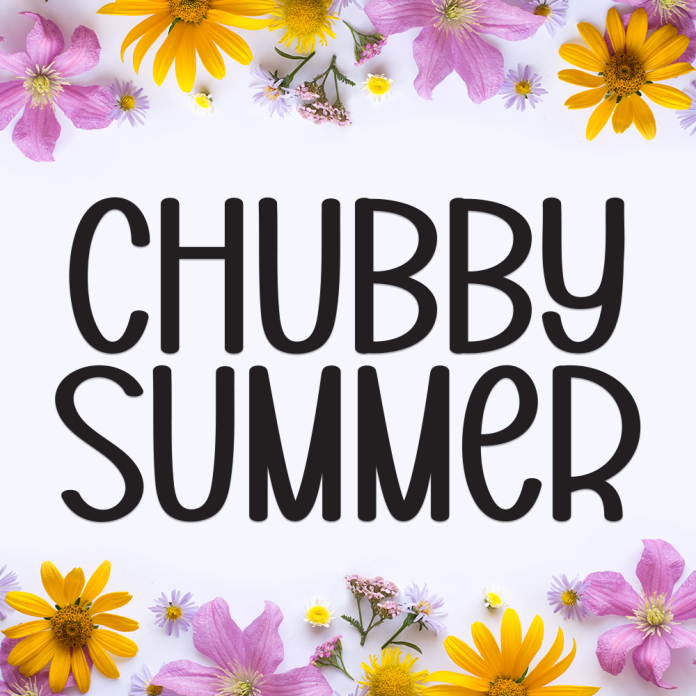
Chubby Summer is a playful and cheerful display font, designed with bold, rounded shapes that bring a sense of fun and warmth. Its friendly curves and lively style make it perfect for projects that need a joyful, summer-inspired vibe.
Fun and whimsical display style
Great for posters, children’s books, party invitations, and playful branding
Bold, rounded letterforms for a friendly look
Includes uppercase, lowercase, numbers, and punctuation
Supports multiple languages
Bring sunshine and happiness to your designs with Chubby Summer.